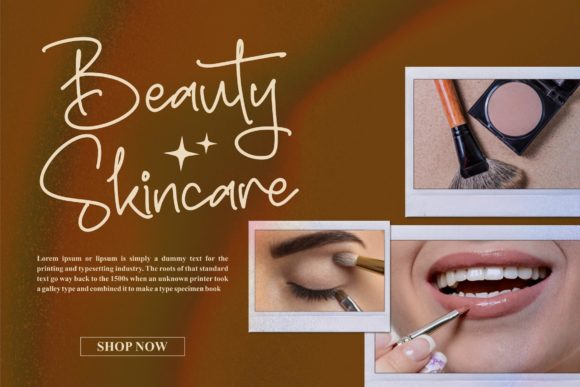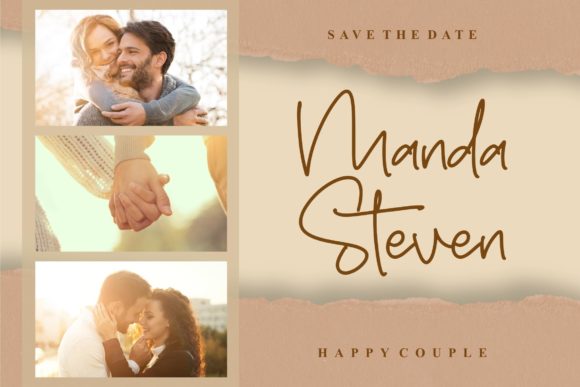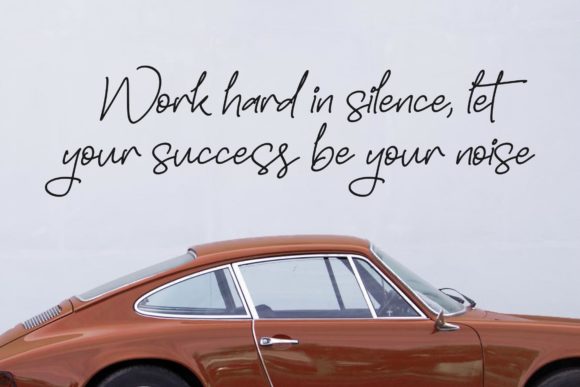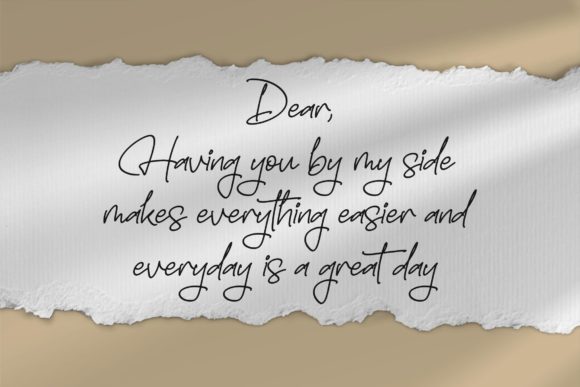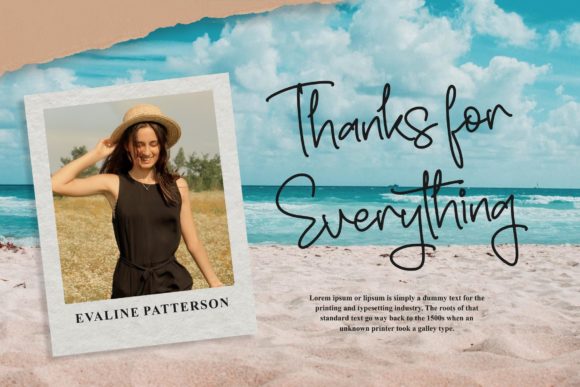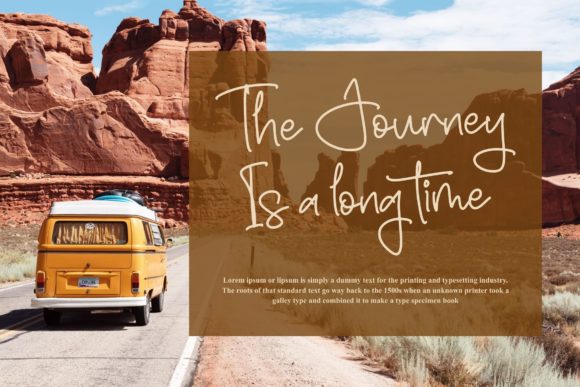
Introduction to Hallowen Cutties Font
As a designer, you’ve likely found yourself stuck in a creative rut, searching for the perfect font to bring your project to life. Maybe you’re brainstorming ideas for a spooky Halloween design, or perhaps you’re looking for a unique touch to elevate your branding. Whatever the case, you’re in luck – we’re about to introduce you to a game-changing design resource: the enchanting Hallowen Cutties Font.
With its modern yet whimsical style, this handwritten font is sure to transport your designs into a magical world. Imagine your next creative project set against a transparent background, with the Hallowen Cutties Font adding a touch of sophistication and charm. Whether you’re a seasoned designer or just starting out, this free download is a valuable addition to your design arsenal, offering high-quality typography that’s sure to impress.
Key Features of Hallowen Cutties Font
- Unique, hand-drawn design for a creative project that stands out from the crowd.
- Perfect for creating spooky and festive designs, such as Halloween-themed posters, invitations, and social media graphics.
Honest Review: Hallowen Cutties Font
As a designer, I’m always on the lookout for unique and high-quality design resources to elevate my creative projects. The Hallowen Cutties Font caught my attention, and I was excited to give it a try.
Here are some things that work well with this font:
- ✨ Unique and playful design aesthetic that’s perfect for Halloween-themed projects or any other creative project that needs a spooky touch.
- ⚠️ Limited character set, which may not be suitable for extended text-based projects.
- ⚠️ May not be ideal for projects that require a more professional or formal tone.
Overall, the Hallowen Cutties Font is a fun and creative design resource that’s perfect for designers who want to add a touch of whimsy to their projects. While it may have some limitations, its unique design aesthetic and high-quality font files make it a valuable addition to any design library.
Tips for Getting the Most Out of Hallowen Cutties Font
For the best results, use Hallowen Cutties Font with a high-quality design resource, such as a high-resolution image or a well-designed background. You can also experiment with different font sizes and colors to create a unique design.
Common Use Cases for Hallowen Cutties Font
Hallowen Cutties Font is a versatile design resource that can be used in a variety of creative projects, such as invitations, posters, and social media graphics. It’s also a great choice for designers who want to add a touch of whimsy to their designs.